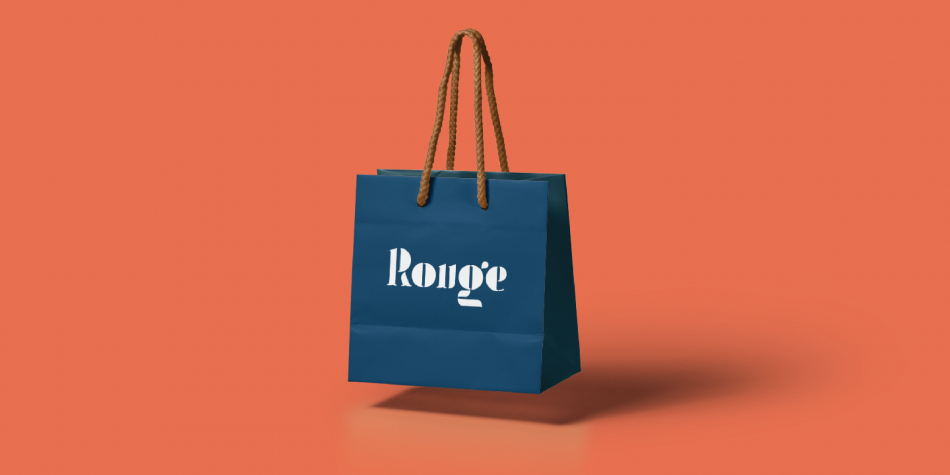
Designed by Pepe Tzintzun, Dania Stencil is a stencil font published by Pepe Tzintzun.
A stencil typeface based on classic strokes; inspired by art and fashion. Ideal for brands, advertising and editorial design.